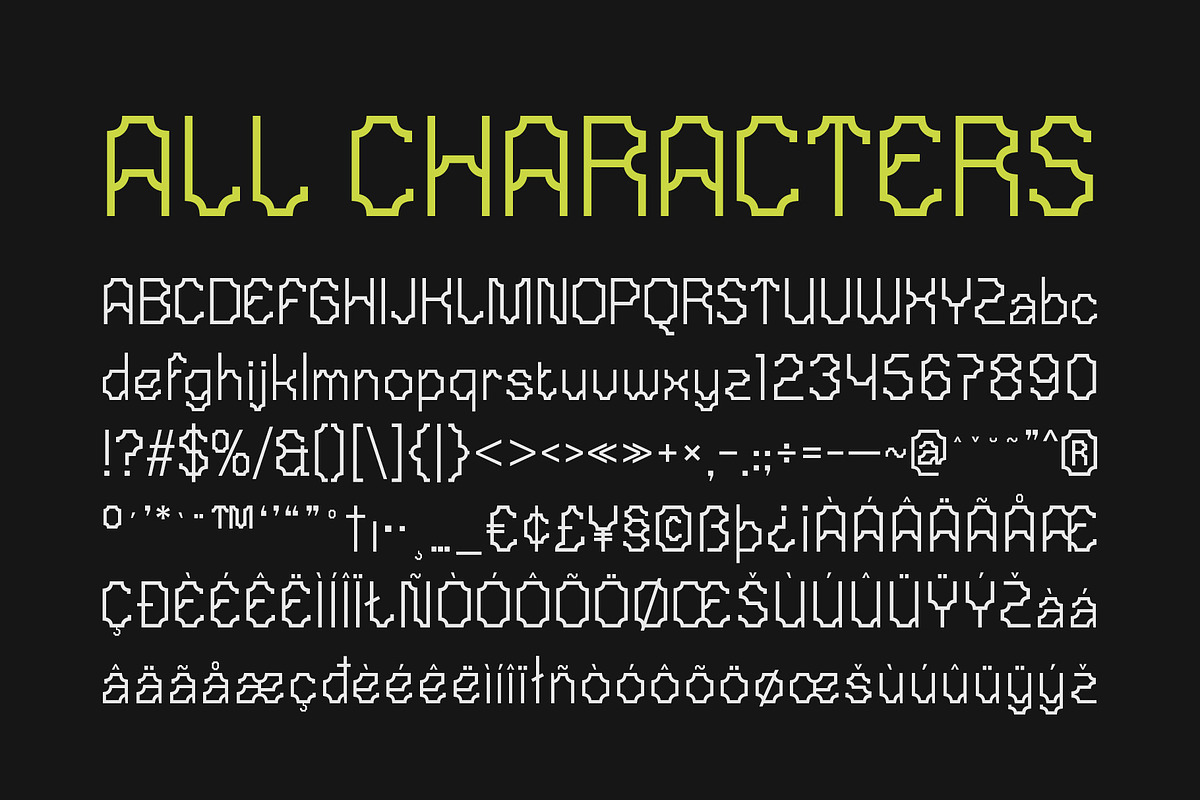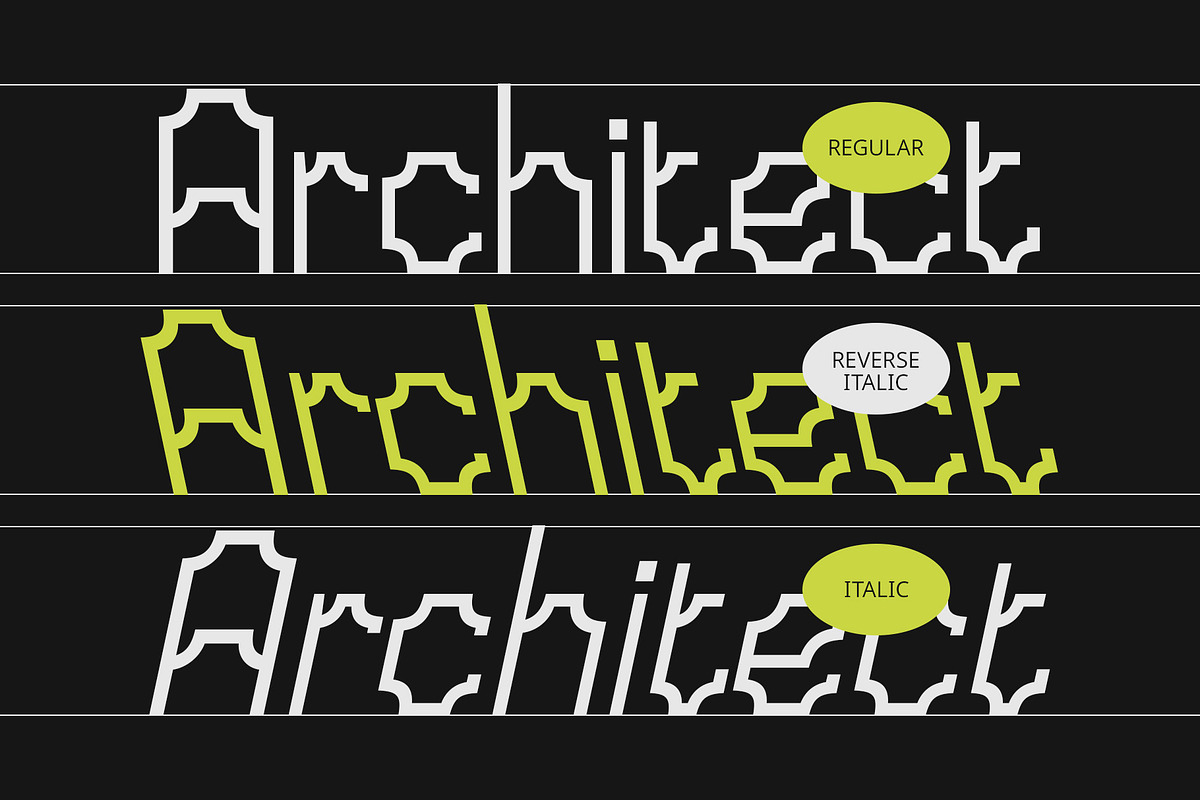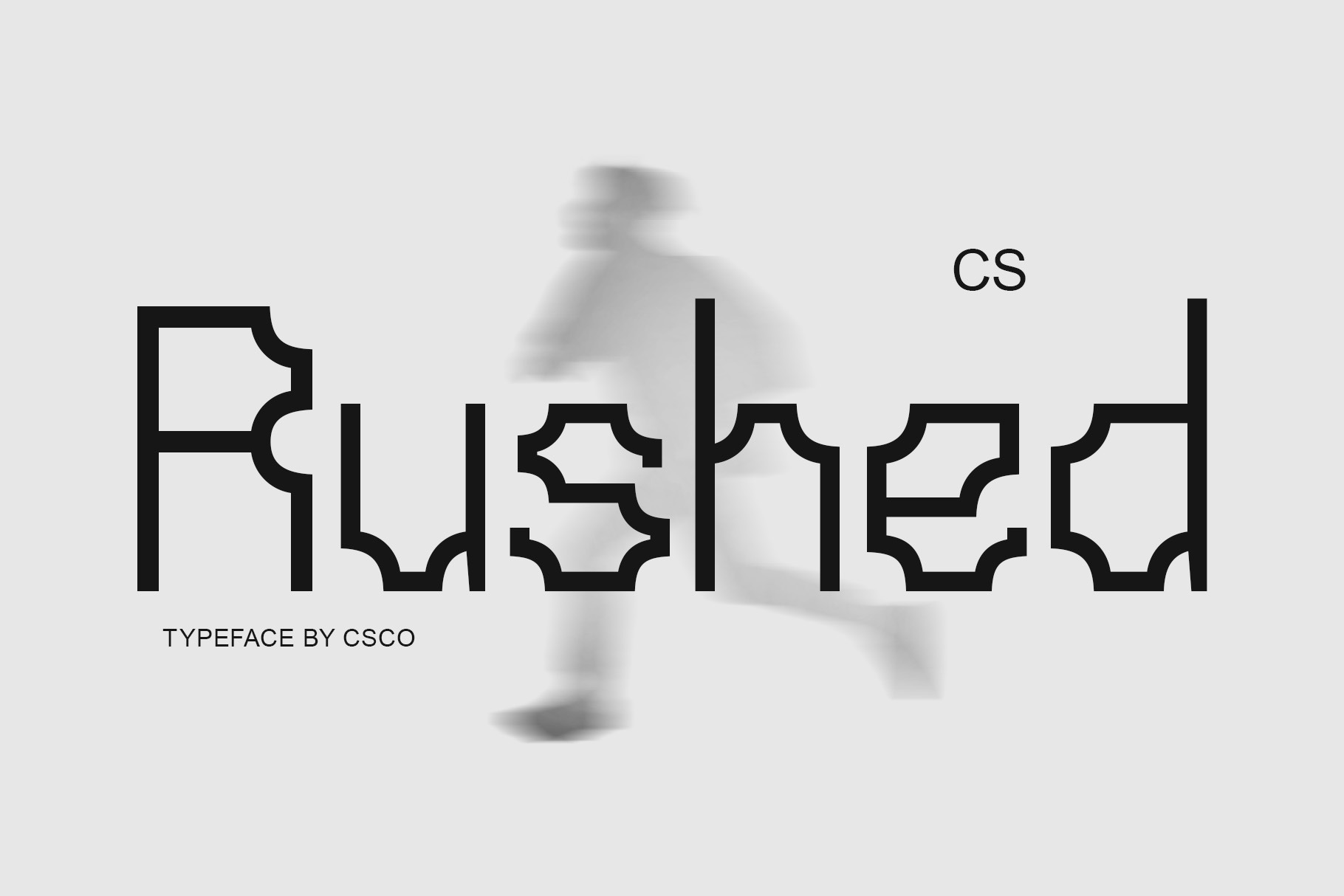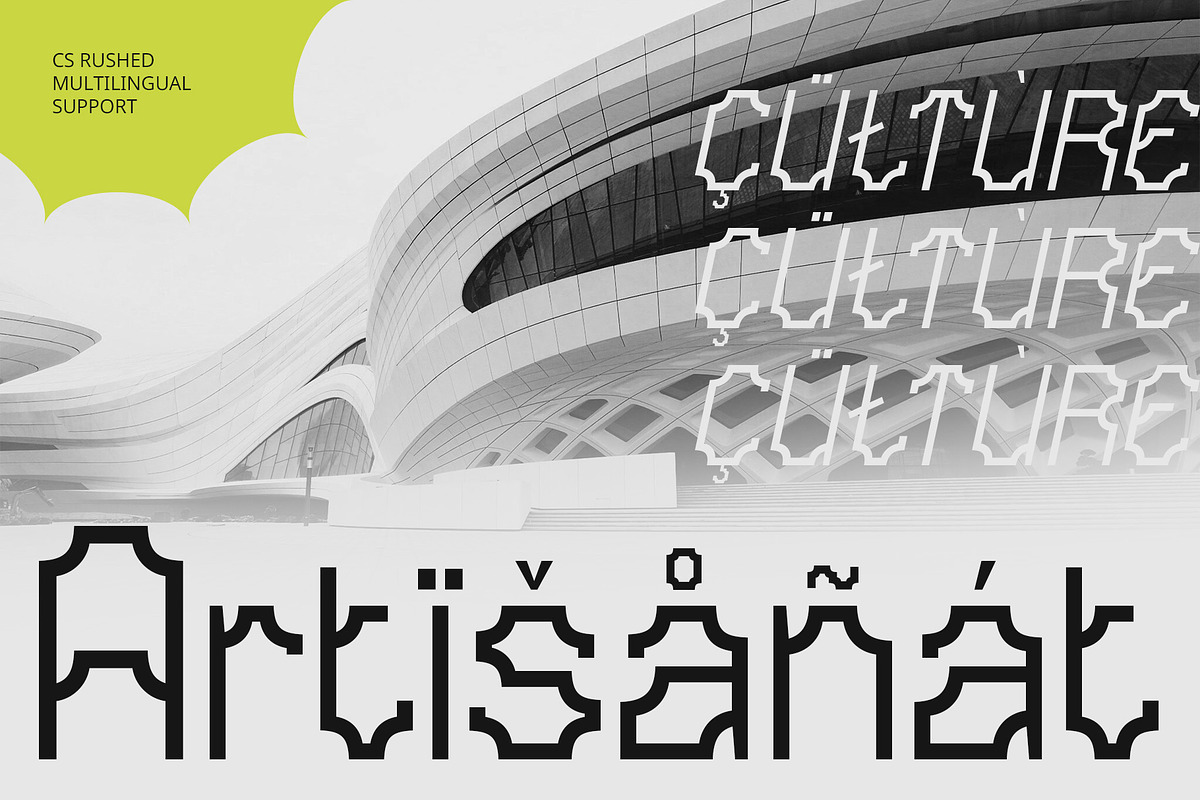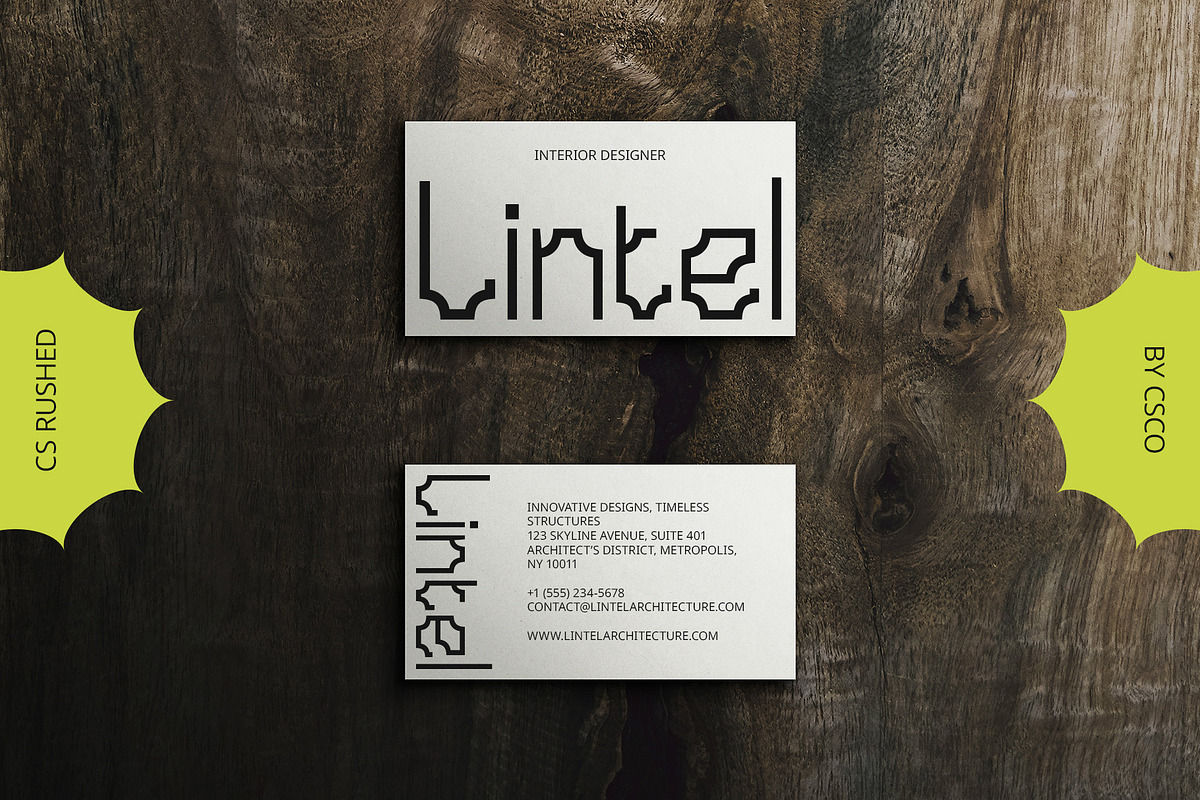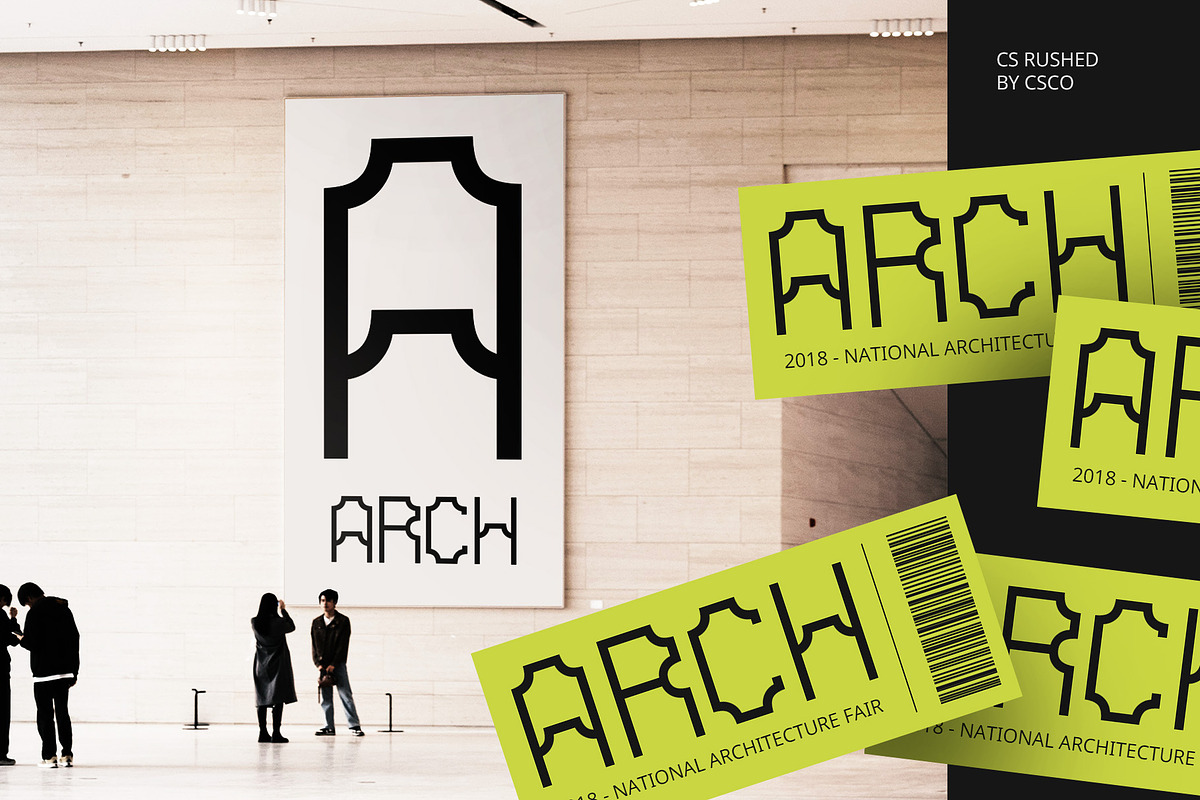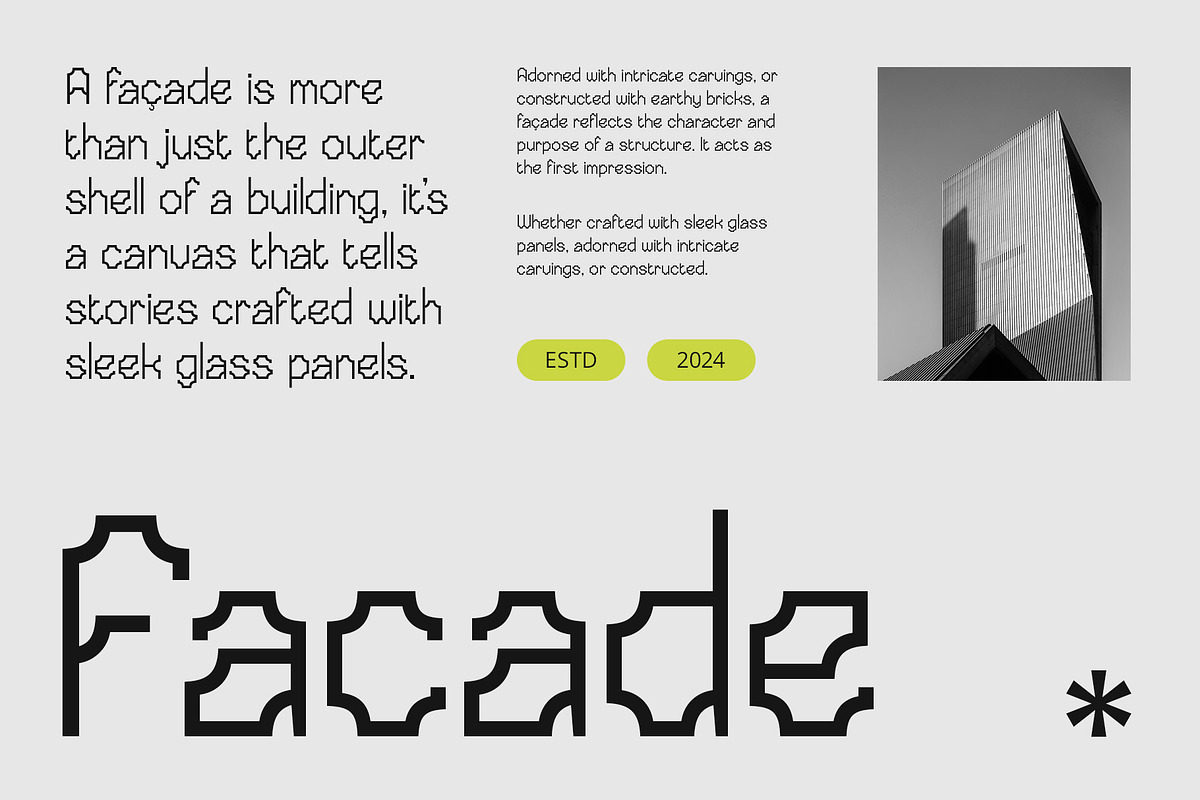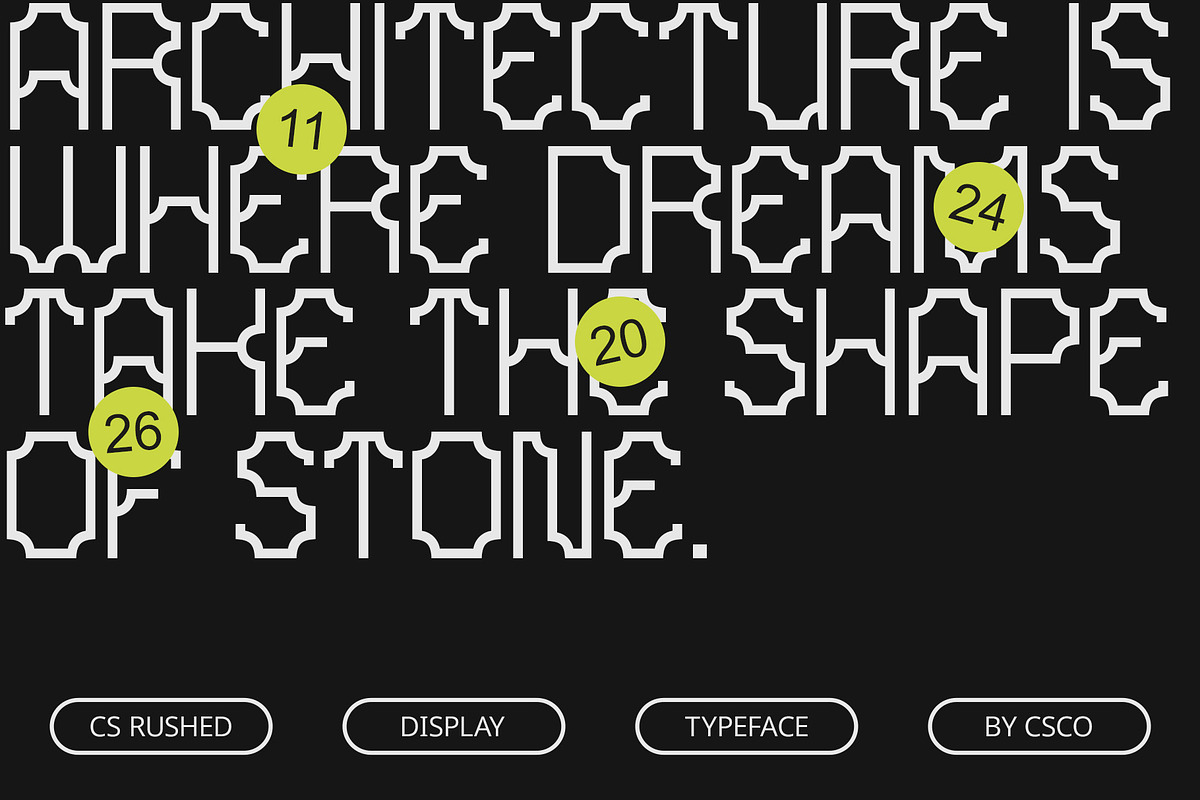
CS Rushed – Techno Font
CS Rushed – Futuristic Techno Display Font
A Bold Vision of the Future CS Rushed is a futuristic techno display font designed to embody the essence of modernity, innovation, and technological progress. With its sharp angles, clean lines, and geometric shapes, this font takes inspiration from cutting-edge technology and digital advancements. Features like disconnected letters, modular styles, and electronic accents enhance its sleek, high-tech appearance, making it perfect for designs that demand a bold, futuristic edge.
Designed for a Digital Age The font’s design incorporates minimalistic forms with digital elements, giving it a distinct, high-tech feel that is both functional and visually striking. The modular and segmented letterforms suggest precision and efficiency, while the sharp angles and geometric simplicity convey a sense of order and innovation. Every character is crafted to fit seamlessly within a digital landscape, making this font ideal for any project that seeks to represent the digital age.
Perfect for Tech-Driven Designs CS Rushed excels in projects within the tech industry, including branding for technology companies, sci-fi posters, futuristic video games, and UI/UX designs for apps and websites. Its cutting-edge appearance is also ideal for advertising campaigns focused on innovation, where a modern, forward-thinking vibe is needed. Whether for product launches, digital interfaces, or promotional material, CS Rushed makes a bold statement, emphasizing progress and technology.